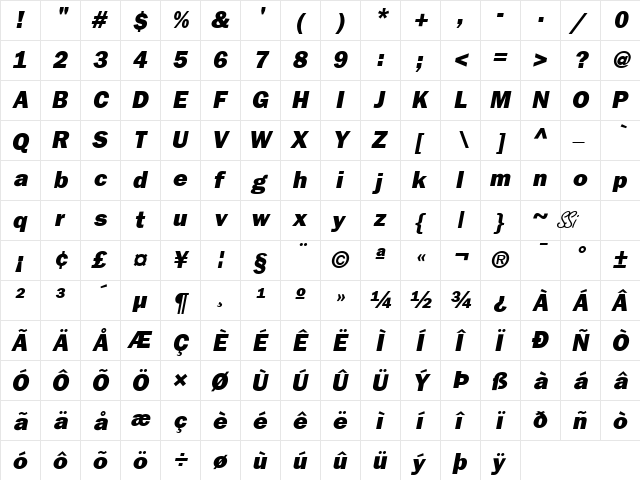
Franklin Gothic Black SSi Black Italic
Design Context for Franklin Gothic Black SSi Typeface
Franklin Gothic Black SSi has the quiet confidence of well-executed sans-serif typography: versatile, unobtrusive, and dependable at any size. The slanted form adds forward momentum and visual energy.
Font Pairing: Works well alongside a characterful serif or display font that can carry the expressive load while Franklin Gothic Black SSi handles the functional copy.
Pro Tip: Pair Franklin Gothic Black SSi with a display or serif font for headlines — its neutral character makes it an excellent supporting player in complex typographic systems.